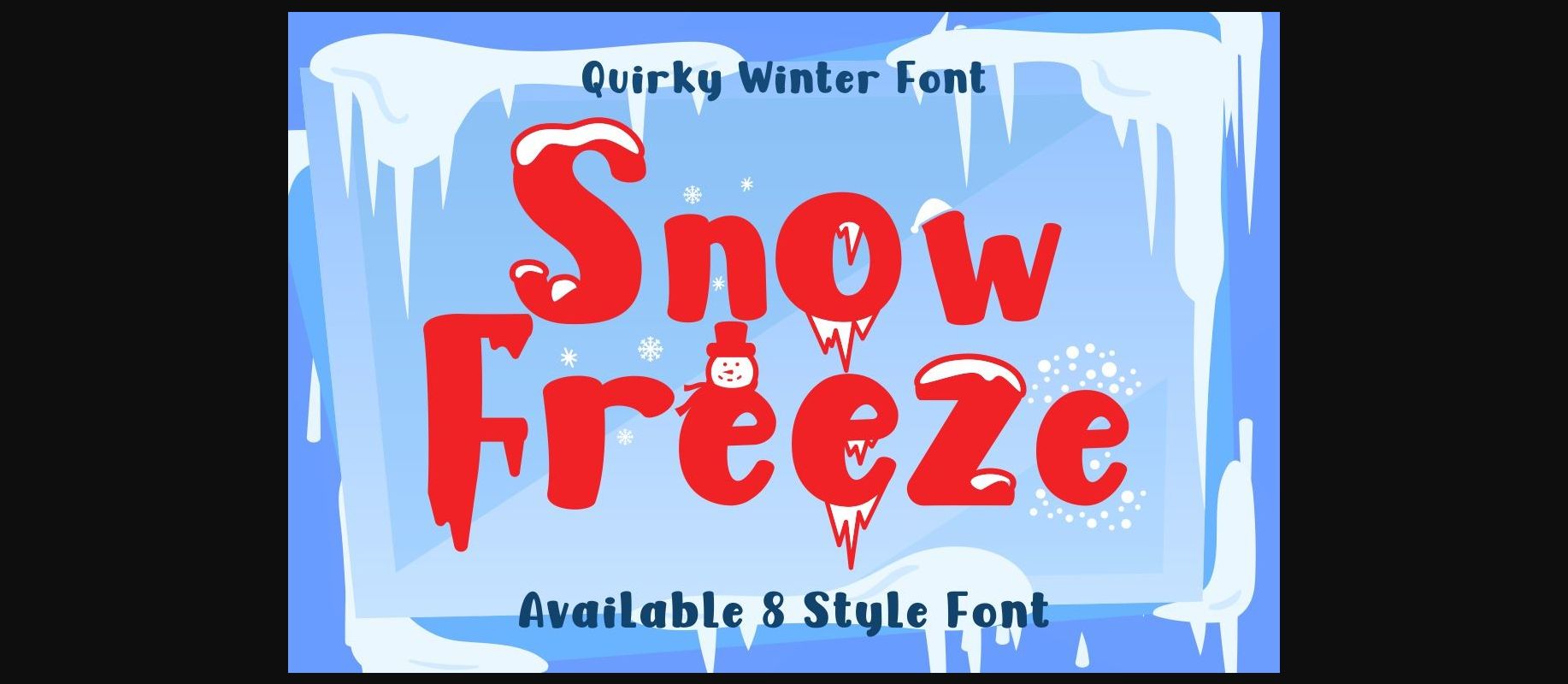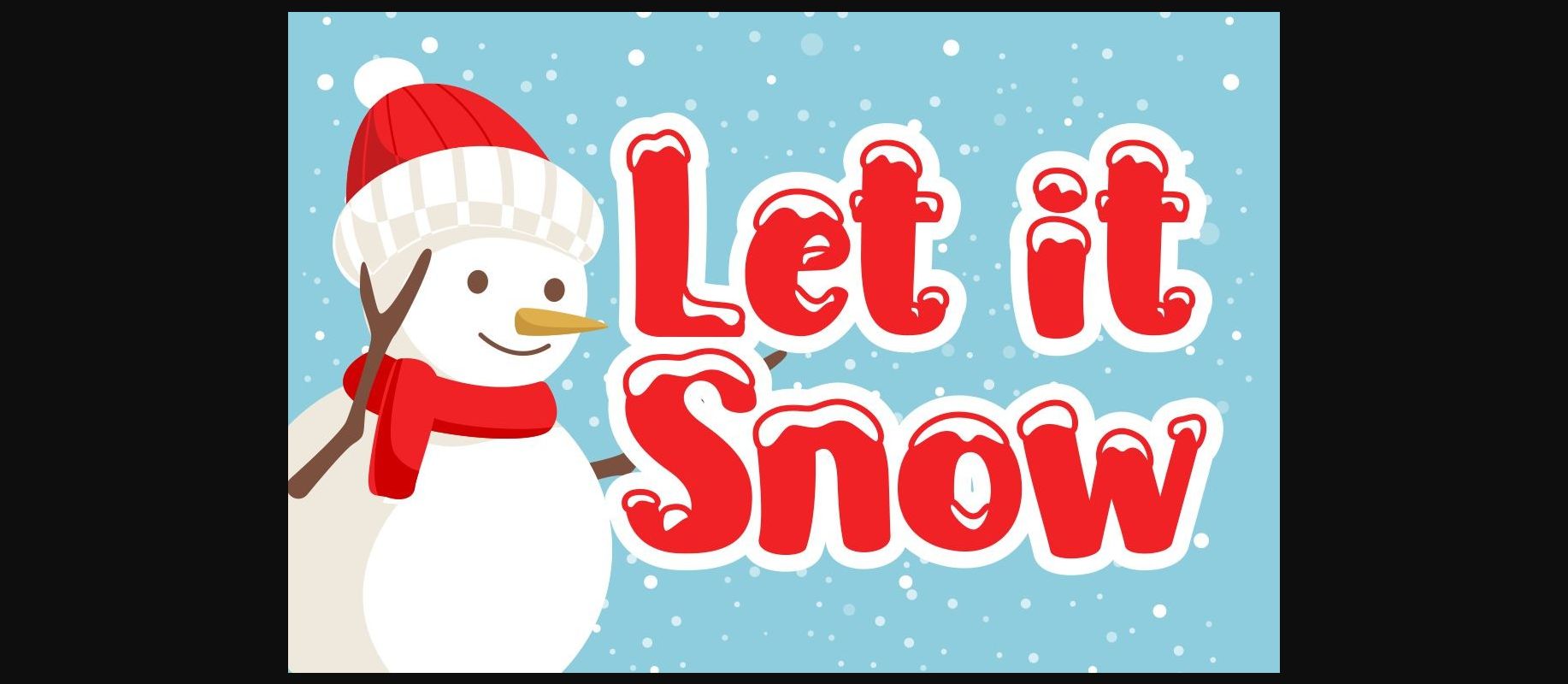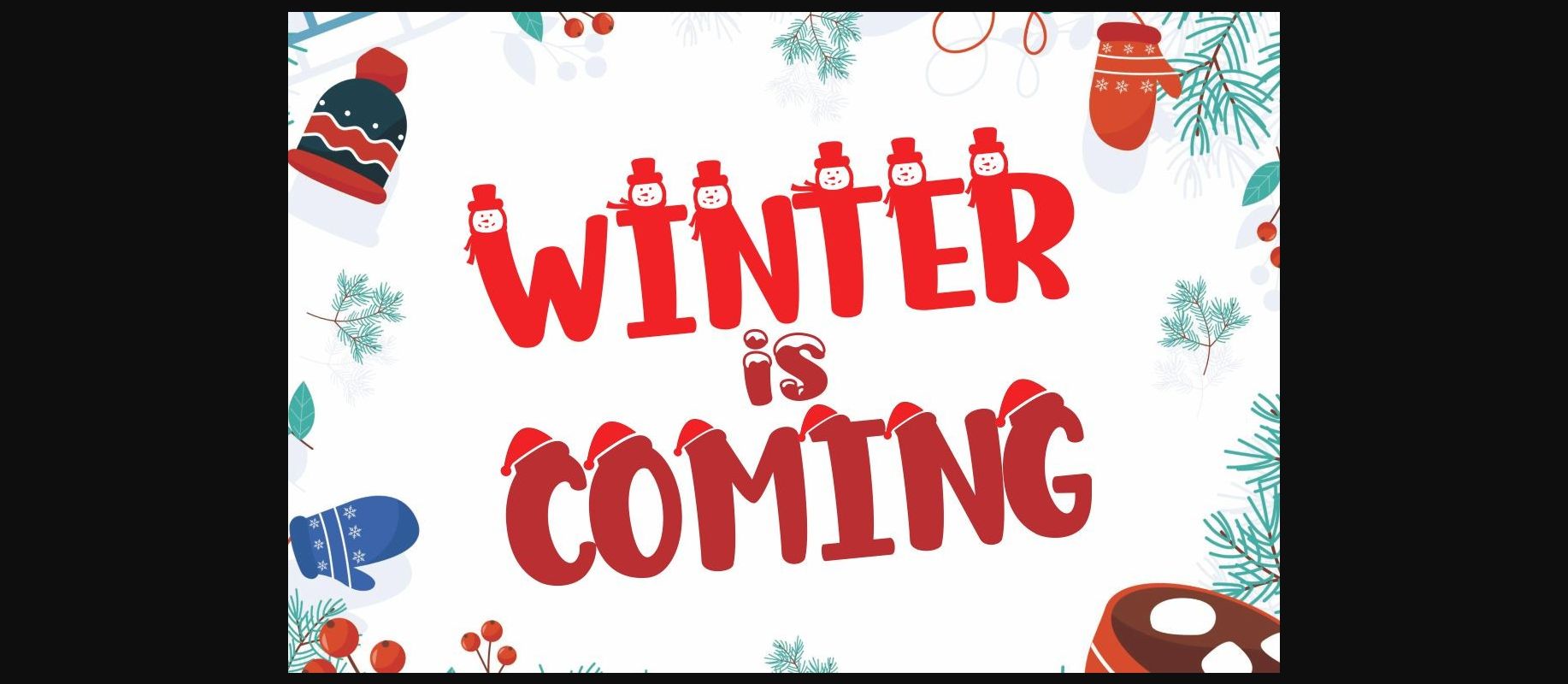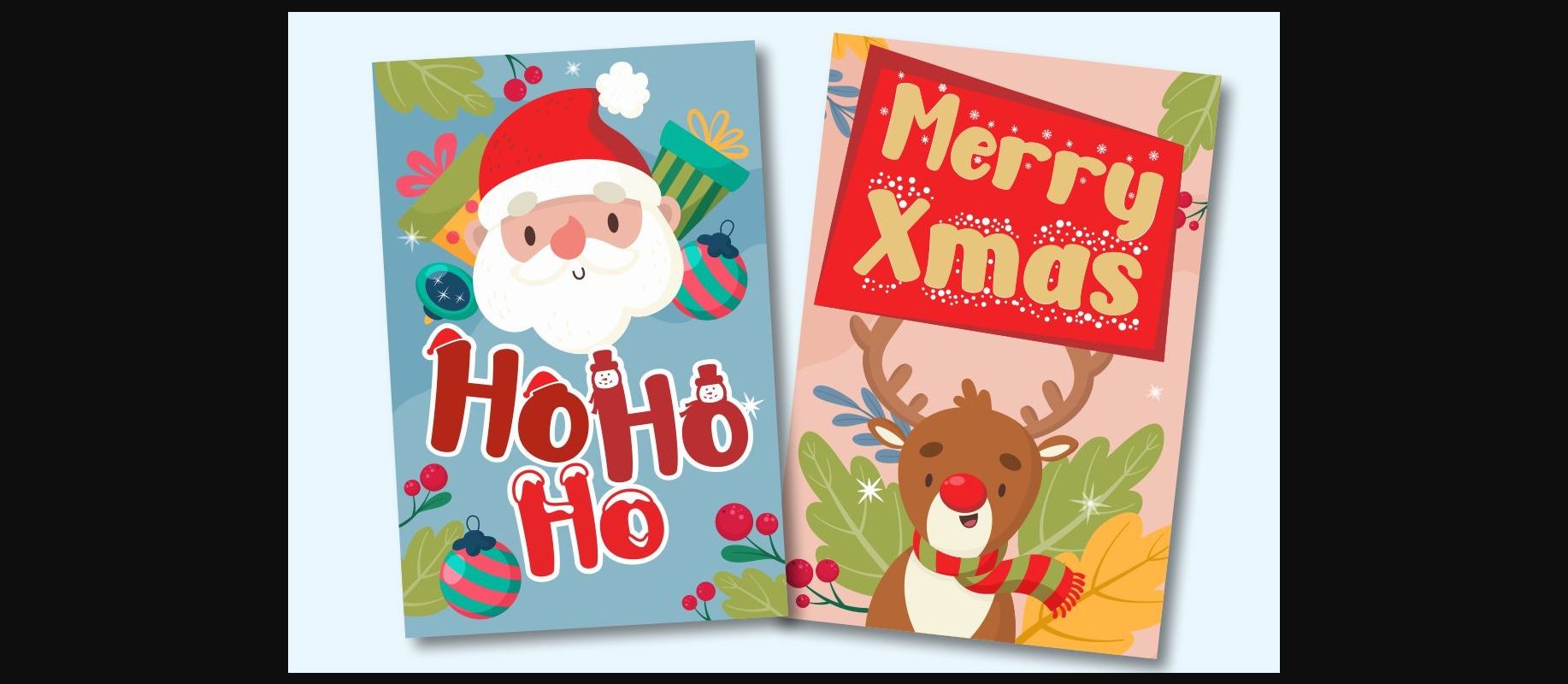
Snow Freeze Font
About Snow Freeze Font
Snow Freeze is a fun, lovely and wintery decorative font. It embodies playfulness and authenticity and is the perfect choice for any children activity or school project.